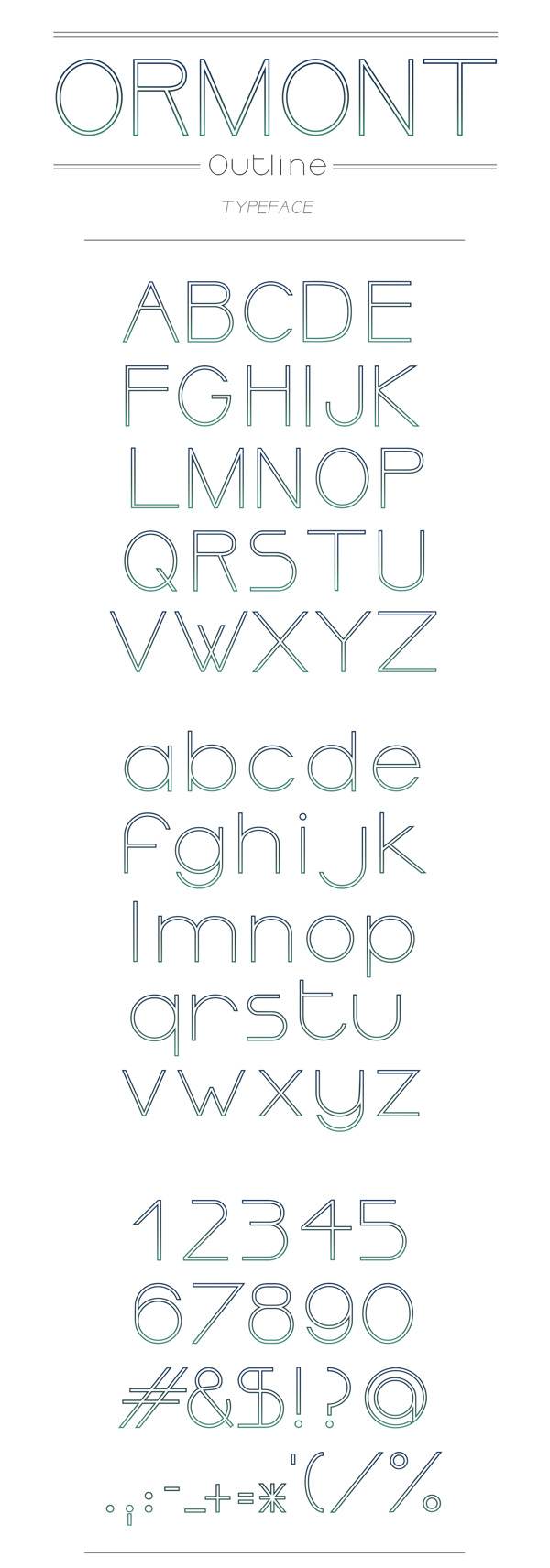
Fonts Free Font Of The Day #5- Ormont Light and Outline Font by Rizki Akmanda January 31, 2014 Ormont Light and Outline Font OrmontLight and Outline Font by Youssef Habchi are sans serif typefaces adapted specifically to titles. Available for free download for personal or commercial use. View Source Download Rizki Akmanda Founder of Themes Awesome. I love my job as web developer. Proud husband of Camira and father of Faizhia & Luffy